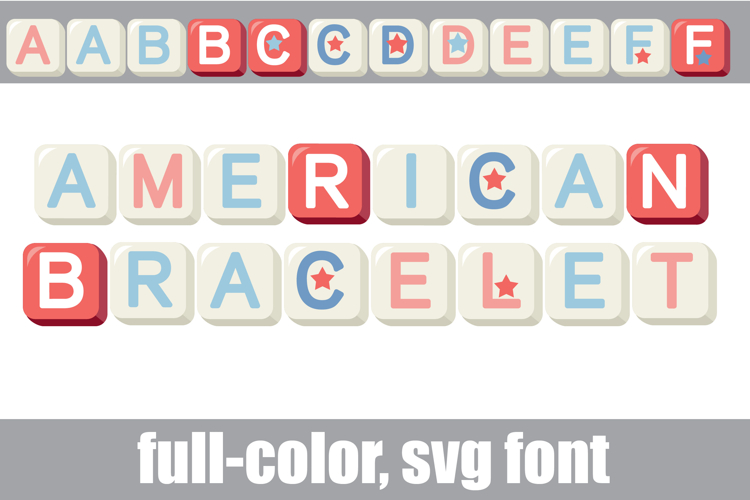
American Bracelet Too Color Font
This full-color, beaded-style font is in a pastel patriotic color palette. There is an alt case of additional colors of each letter that you can access through your system's character map.